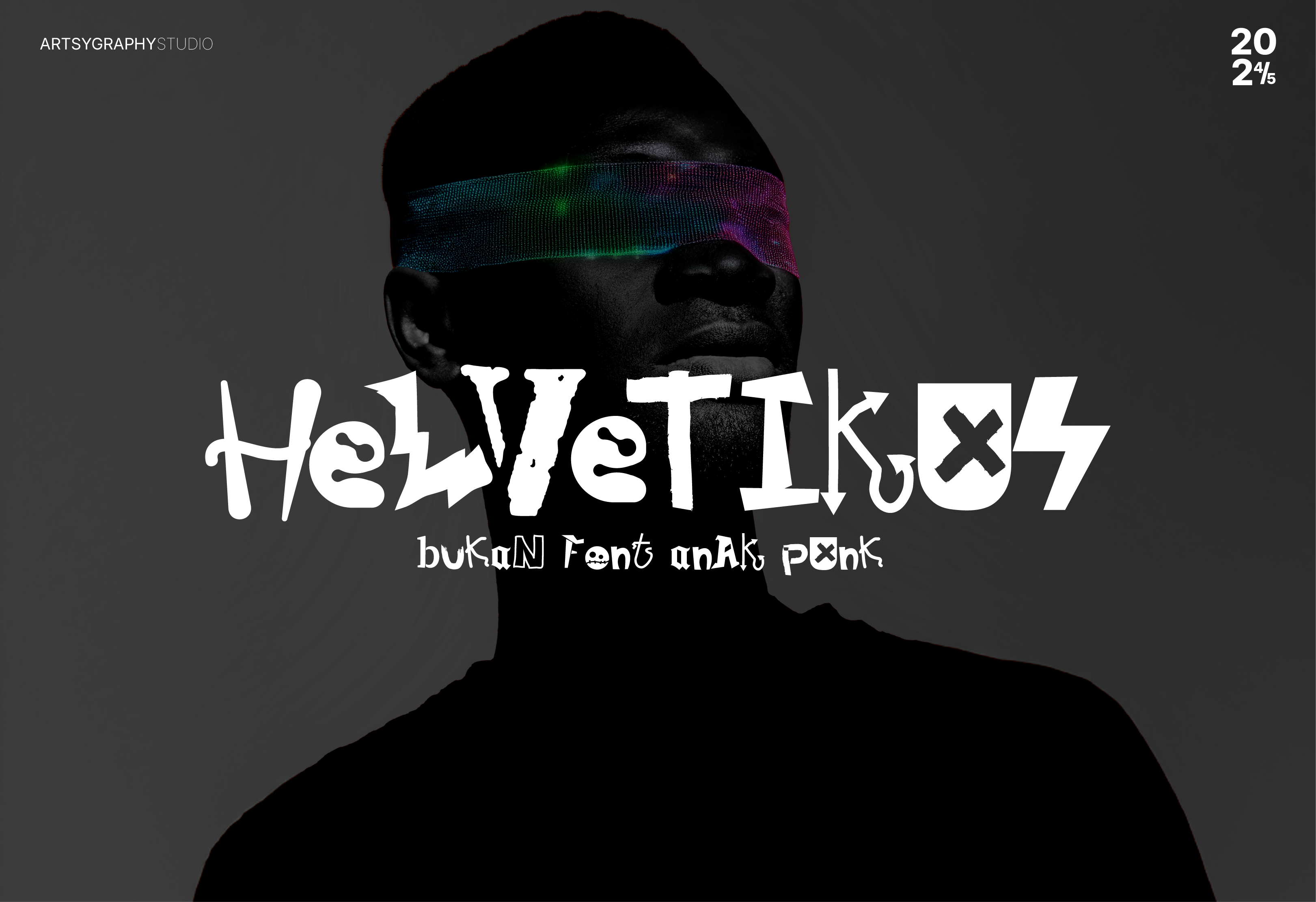
Helvetikus - Combination CutOut Font
Helvetikus is a experimental combination font by Artsygraphy Studio. They mixed in various style to every single letters, making it a must have for diverse design project, from branding to editorial layout.